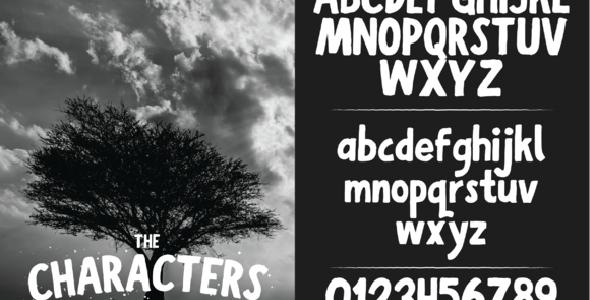
Boldoa Mat Handmade Typeface
Bodoa Mat inspired by an inscription on the window of a trader in one school. Is a seller “batagor”, which is a typical food of Indonesia. Boldoa Mat designed specifically for the needs of themed design vintage, classic, and other matters relating to the Handmade. Boldoa Mat is a rough handwriting. Enjoy.